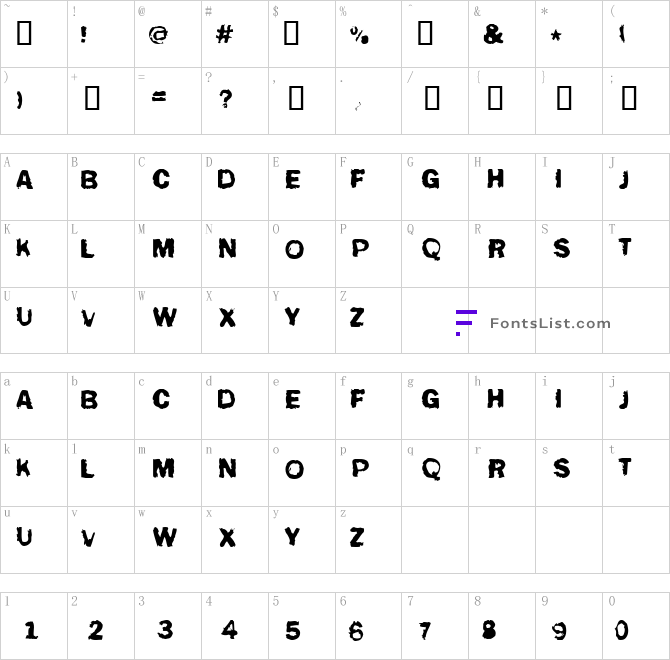
- Font Name:All your font are belong to us
All-your-font-are-belong-to-us.ttf is a very beautiful artistic font, All-your-font-are-belong-to-us.ttf is widely used in the design and printing of various books and pictures,All-your-font-are-belong-to-us.ttf has a strong visual impact,All-your-font-are-belong-to-us.ttf is a commonly used font in newspapers, magazines and books, and is used in posters, e-commerce Poster design, store design, logo design, font design and other fields.All-your-font-are-belong-to-us.